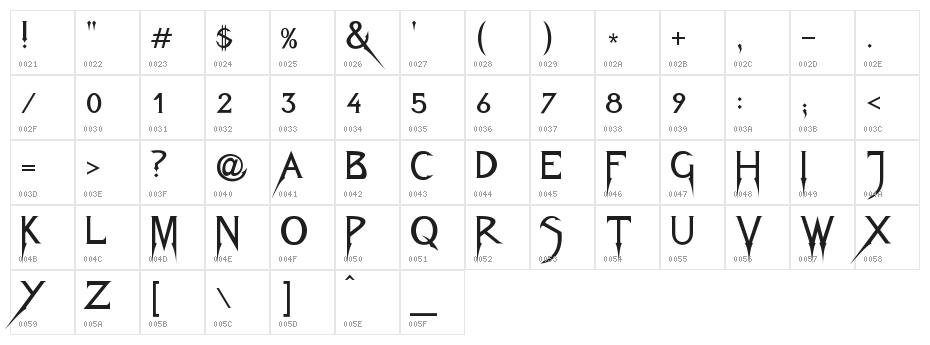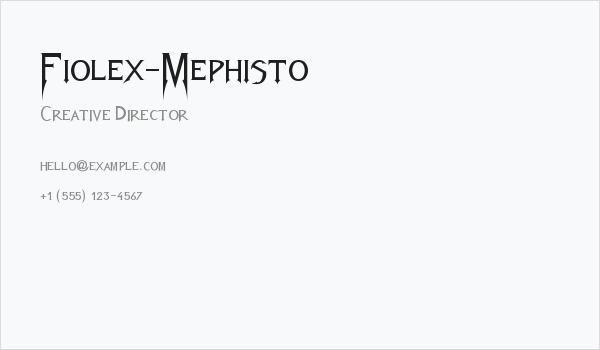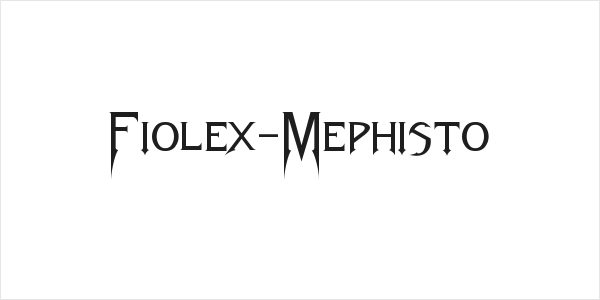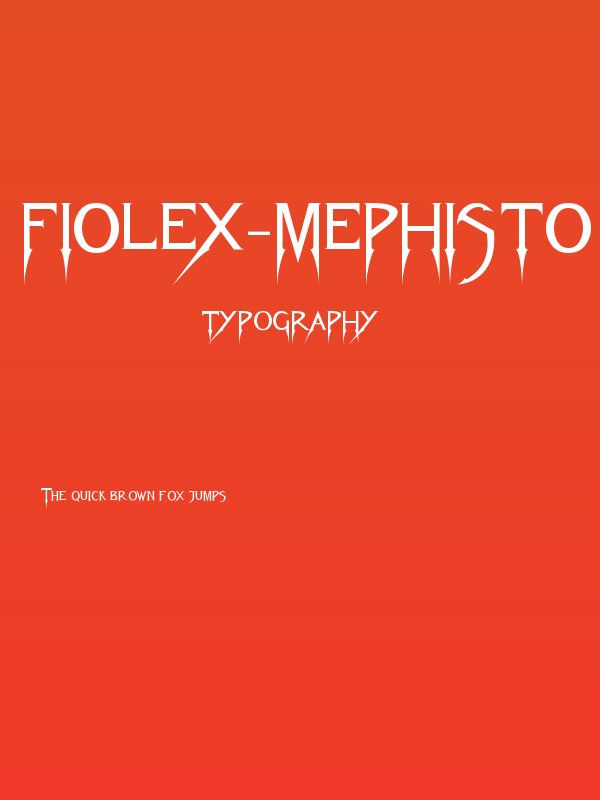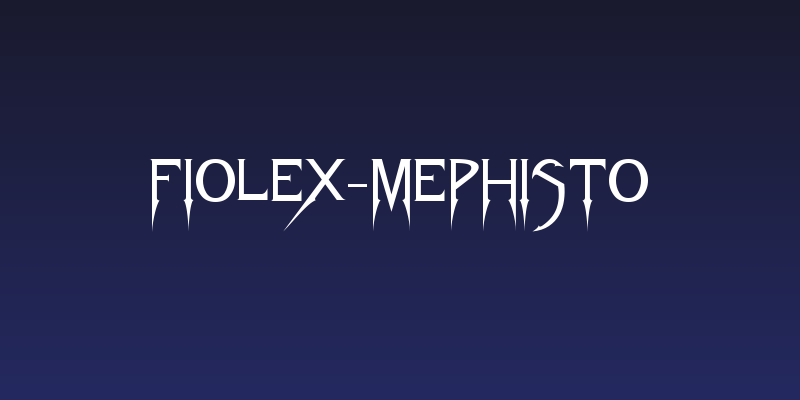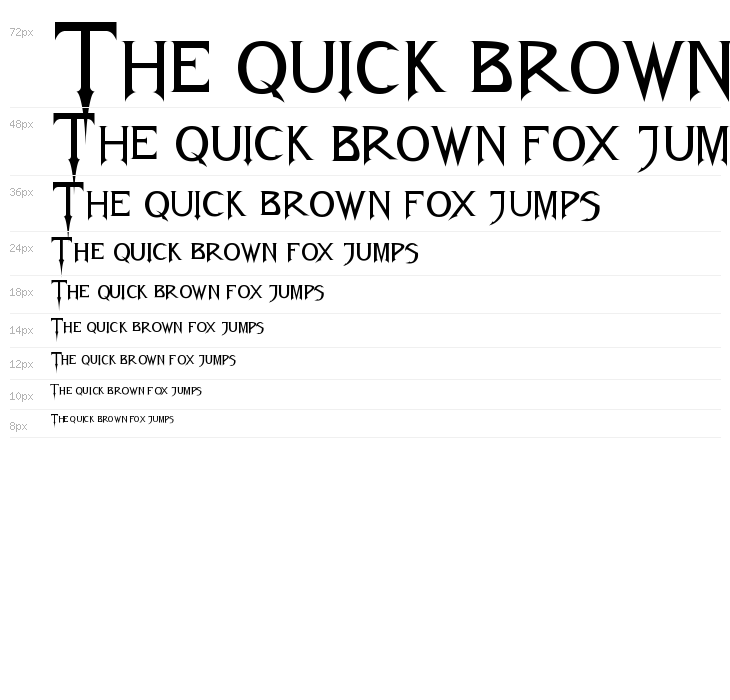
Fiolex-Mephisto Font
Fiolex-Mephisto Description
This font features a striking and edgy design with sharp, pointed serifs and a gothic-inspired aesthetic. The characters are bold and dramatic, with a unique flair that combines traditional serif elements with a modern twist. The uppercase and lowercase letters maintain a consistent style, with elongated strokes and angular details that give the font a distinctive, almost menacing appearance. The numerals and special characters follow the same design principles, ensuring a cohesive look across all glyphs. This font is perfect for projects that require a bold statement or a touch of the dramatic.
| Overall Style | Gothic, Dramatic, Modern |
| Proposed Projects | Ideal for horror-themed posters, album covers, video game titles, and branding that requires a dramatic flair. |